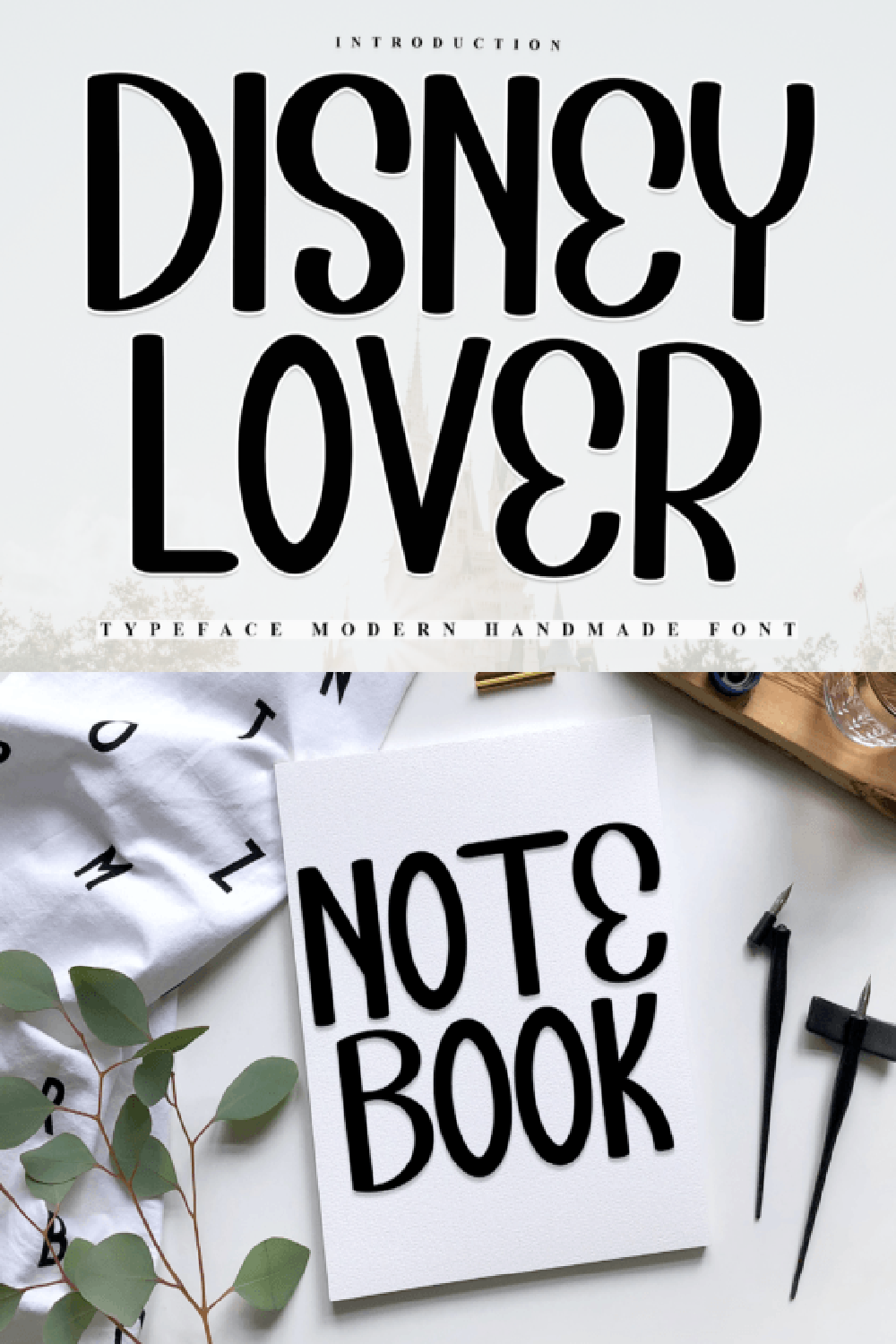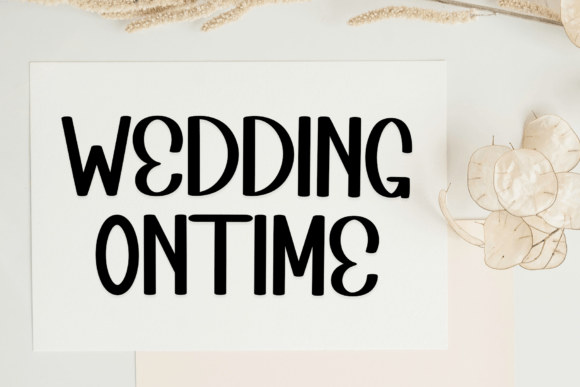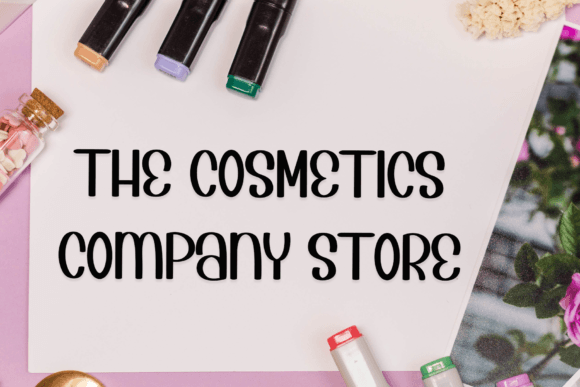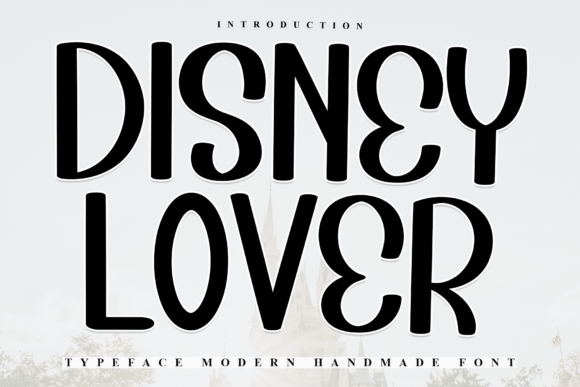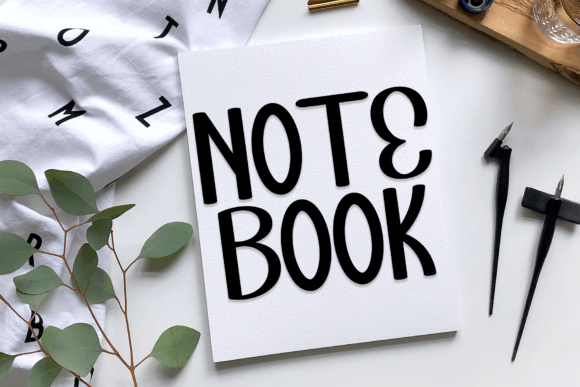
Disney Lover Font
About the Disney Lover Font
Let us introduce you to Disney Lover Font, where timeless design meets modern craftsmanship. Disney Lover is a charming sans-serif font that exudes warmth and personality. With its playful yet legible style, this font adds a touch of whimsy to any project. Perfect for greeting cards, invitations, and branding, this font captures the essence of handmade authenticity with its natural strokes and irregularities.
Disney Lover’s playful yet legible nature makes it ideal for children’s books, packaging for toys or sweets, and social media graphics. It also works well in short headlines or taglines for brands targeting a younger demographic or those wishing to project a fun, approachable image. However, its informal style is less suitable for body text, lengthy documents, or applications requiring high readability, such as websites or UI.
Pairing Disney Lover with a clean sans-serif like Open Sans for body copy provides excellent contrast and readability. For a more sophisticated look, consider pairing it with a delicate serif like Lora for supporting text or headlines requiring a touch of elegance. Alternatively, a simple geometric sans-serif like Montserrat could create a balanced and modern feel.
The font’s overall personality is best described as cheerful and approachable, conveying a sense of childlike wonder and handmade charm. It’s a versatile choice for projects needing a lighthearted and friendly touch.